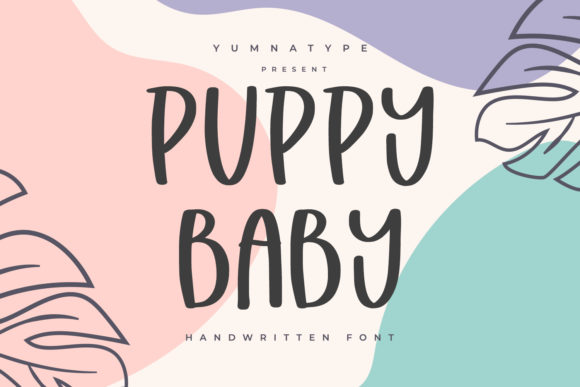
Puppy Baby Font: The Ultimate Choice for Animal-Themed Designs
In the world of typography, fonts play a crucial role in conveying the tone and personality of a design. When it comes to creating animal-themed designs, a font that exudes friendliness and cuteness is essential. This is where the Puppy Baby font comes in – a delightful handwritten font that is perfect for designers looking to add a touch of warmth and playfulness to their creations.
What is Puppy Baby Font?
Puppy Baby is a friendly and cute handwritten font that has been designed to capture the essence of innocence and playfulness. This font is meticulously crafted to resemble the handwriting of a child, making it an ideal choice for designs that require a personal and affectionate touch.
Key Features of Puppy Baby Font
- Handwritten Style: The Puppy Baby font boasts a beautiful handwritten style that is both elegant and playful.
- Animal-Themed Designs: This font is specifically designed for animal-themed designs, making it a perfect fit for pet-related businesses, animal shelters, or wildlife organizations.
- Bright Colors: When combined with bright colors, the Puppy Baby font creates a visually appealing contrast that is sure to grab attention.
- Versatility: This font can be used for a wide range of design projects, including logos, posters, flyers, and social media graphics.
Why Choose Puppy Baby Font?
There are several reasons why designers might choose the Puppy Baby font for their projects. Here are a few:
- Unique Personality: The Puppy Baby font has a unique personality that sets it apart from other fonts. Its friendly and approachable style makes it perfect for designs that require a personal touch.
- Easy to Read: The font is easy to read, even at small sizes, making it suitable for use in a variety of design applications.
- Customizable: The Puppy Baby font can be customized to fit the specific needs of a design project. Designers can adjust the font size, color, and style to create a unique look.
Best Use Cases for Puppy Baby Font
The Puppy Baby font is versatile and can be used in a variety of design projects. Here are some of the best use cases for this font:
- Pet-Themed Designs: The font is perfect for pet-themed designs, including logos, posters, and flyers for pet-related businesses.
- Animal Shelter Designs: The Puppy Baby font can be used to create heartwarming designs for animal shelters, including adoption posters and social media graphics.
- Wildlife Organization Designs: The font is also suitable for wildlife organizations, including logos, brochures, and website headers.
- Kids’ Party Designs: The Puppy Baby font can be used to create fun and playful designs for kids’ parties, including invitations, banners, and party favors.
Tips for Using Puppy Baby Font
Here are some tips for using the Puppy Baby font effectively:
- Pair with Bright Colors: The Puppy Baby font looks best when paired with bright colors. Try combining it with colors like pink, blue, or yellow to create a visually appealing contrast.
- Use for Headings: The font is perfect for headings and titles. Use it to create eye-catching headings that grab attention.
- Experiment with Font Sizes: The Puppy Baby font can be used at a variety of font sizes. Experiment with different sizes to find the one that works best for your design.
In conclusion, the Puppy Baby font is a friendly and cute handwritten font that is perfect for animal-themed designs. Its unique personality, ease of readability, and customizability make it a great choice for designers looking to add a touch of warmth and playfulness to their creations. Whether you’re designing for pet-related businesses, animal shelters, or wildlife organizations, the Puppy Baby font is sure to delight.
- What is the Puppy Baby font?
- The Puppy Baby font is a friendly and cute handwritten font designed for animal-themed designs.